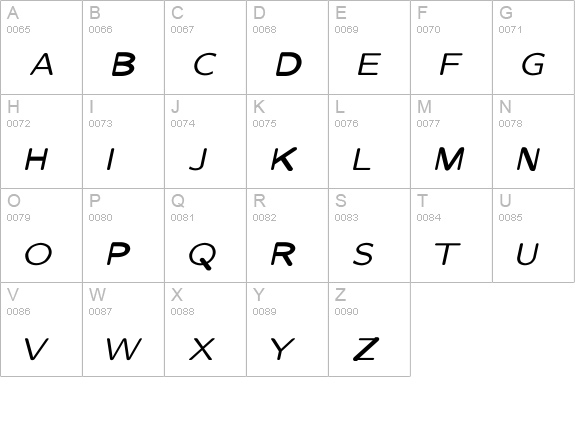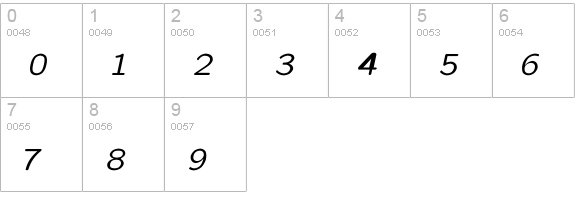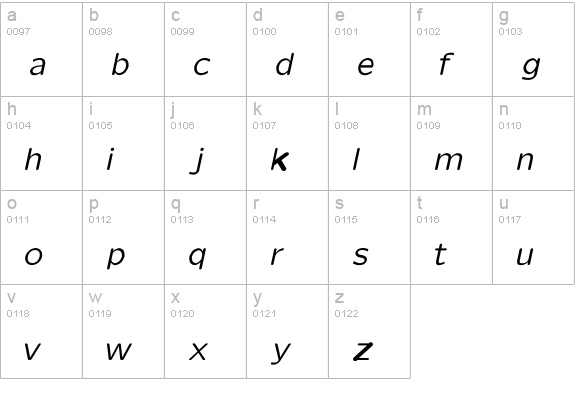
CM_SansSerifQuotation Italic Font Details
CM_SansSerifQuotation Italic is a distinctive, italic variant in the CM_SansSerifQuotation typeface family \xE2\x80\x94 well suited to design and typography projects.
CM_SansSerifQuotation Italic font is a modern and elegant typeface that adds a touch of sophistication to any design project. With its sleek and stylish italicized letters, this font is perfect for conveying quotes, citations, and other text that needs to stand out. The clean lines and subtle curves of CM_SansSerifQuotation Italic font make it a versatile choice for a wide range of applications, from editorial design to branding and beyond. Best of all, this font is available for free download at FontsMarket.com, making it accessible to designers and creatives looking to elevate their work without breaking the bank. Whether you're working on a print project, a website design, or anything in between, CM_SansSerifQuotation Italic font is sure to make a bold statement and leave a lasting impression.